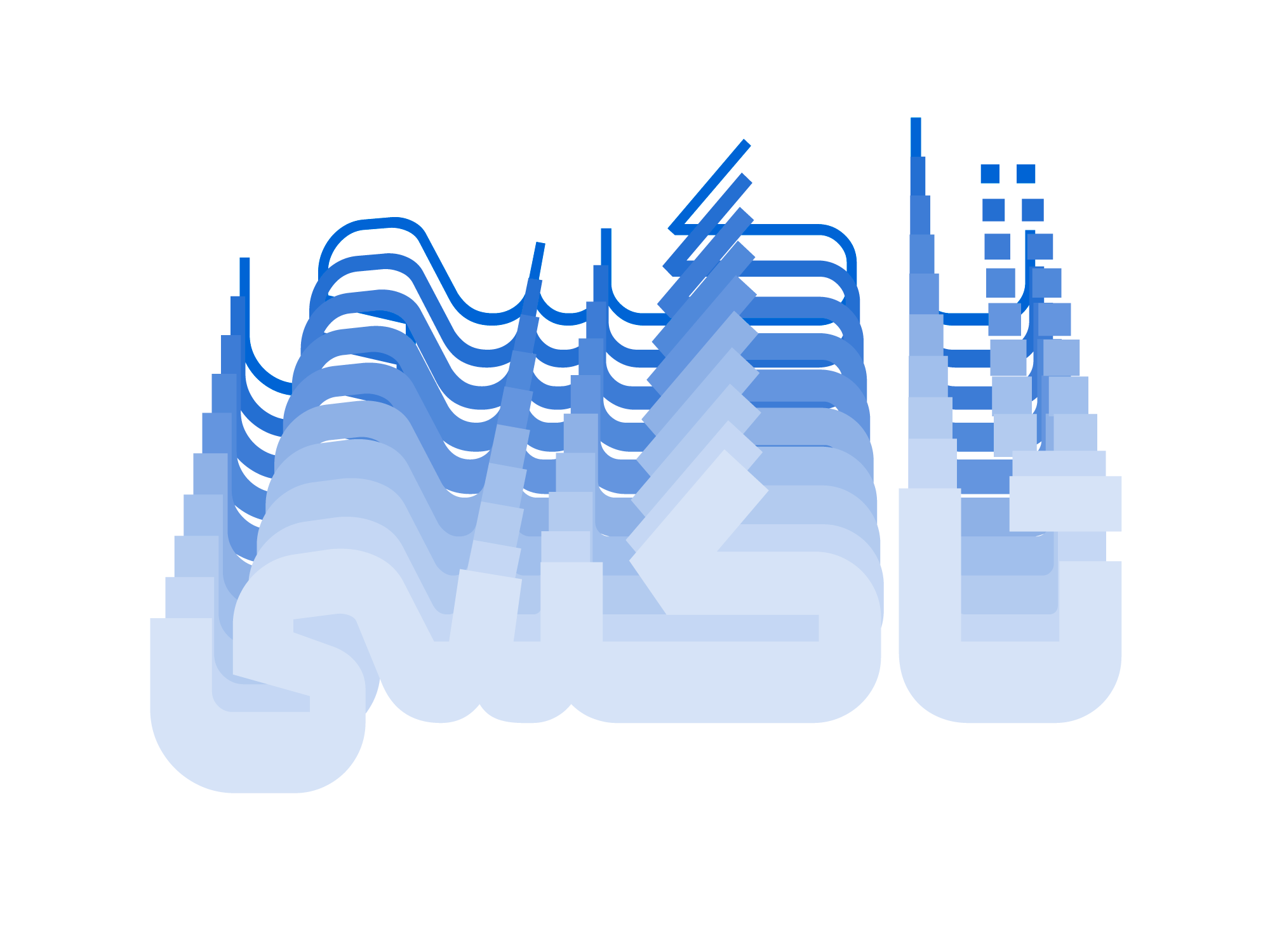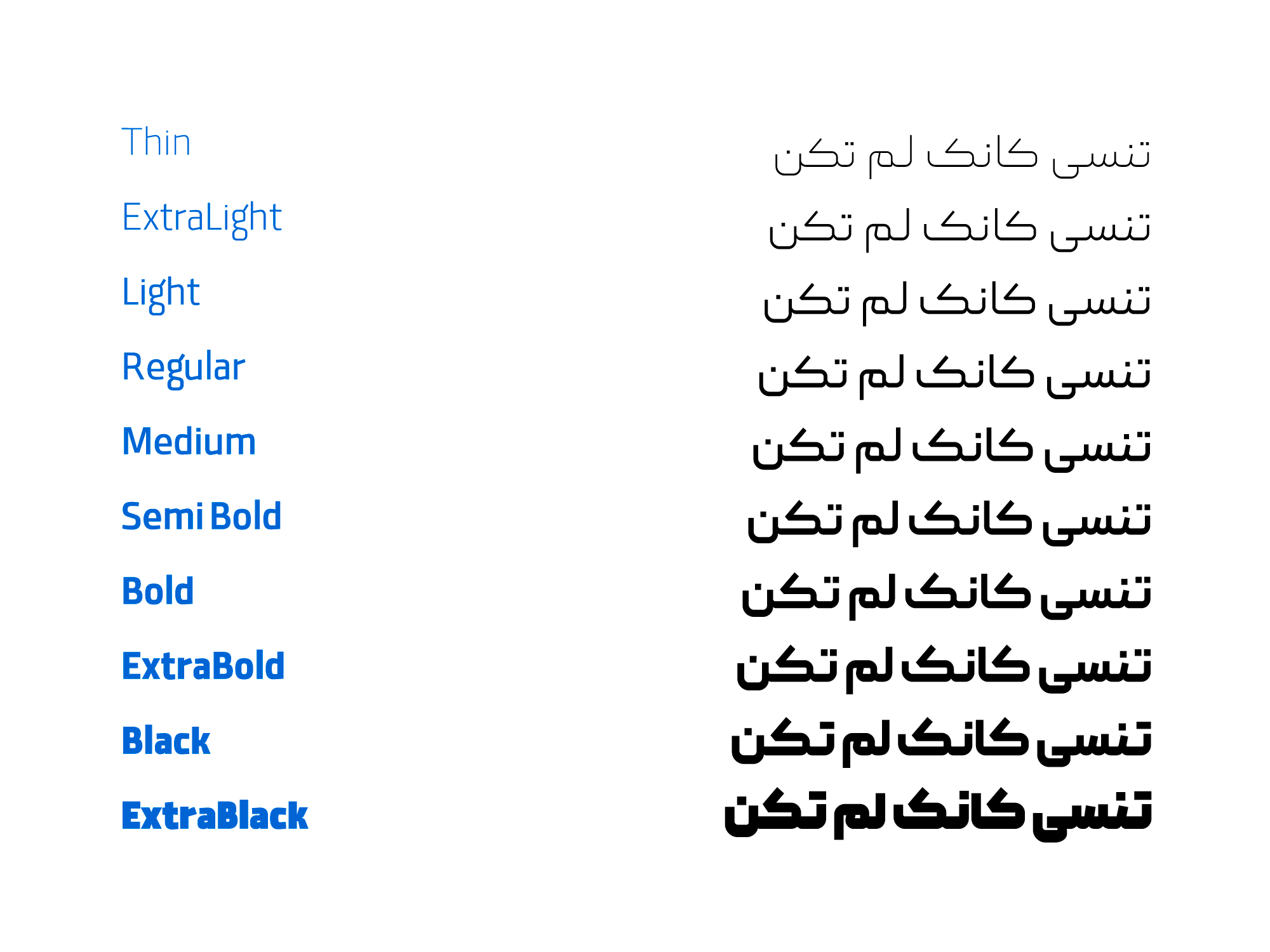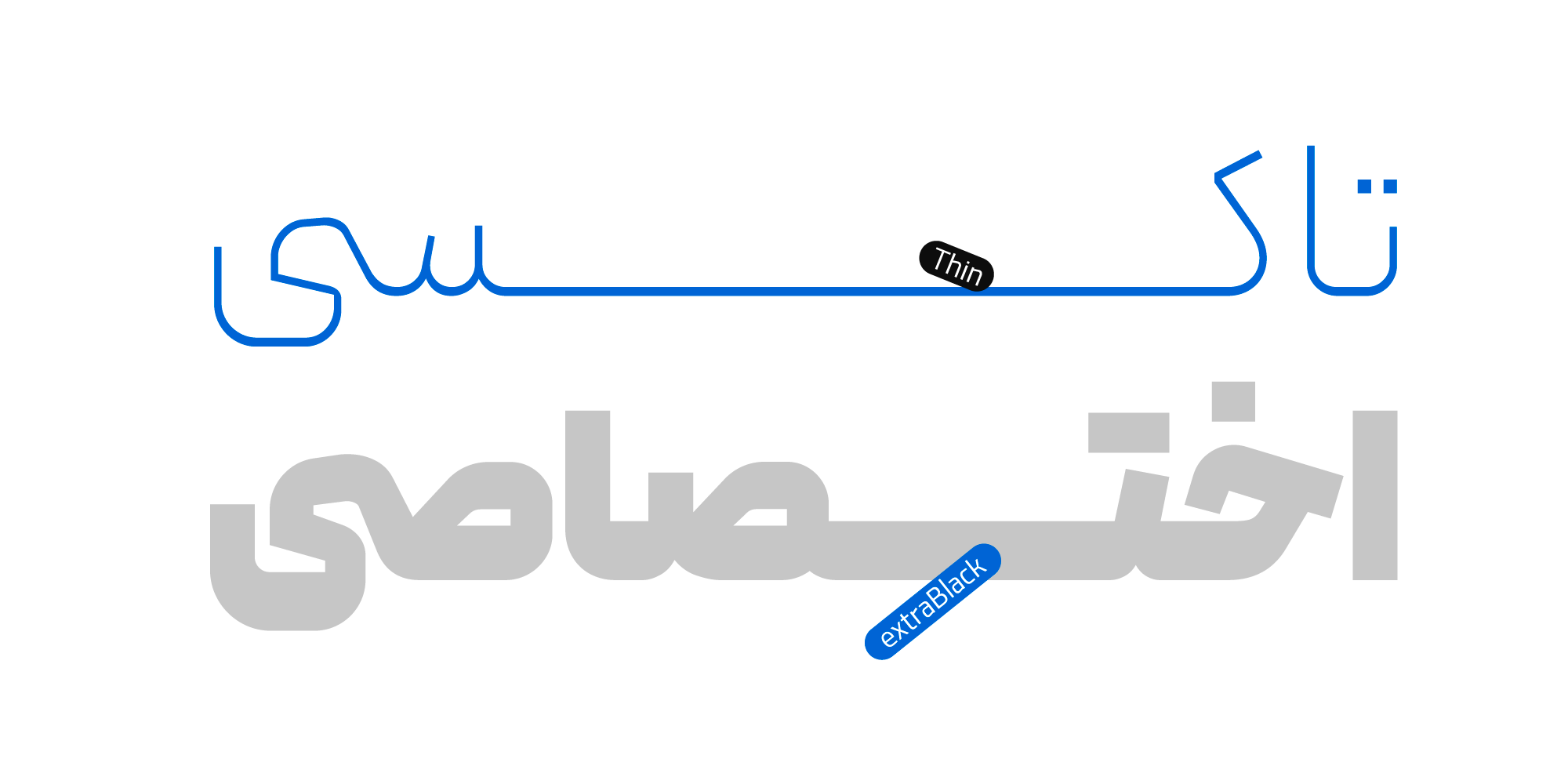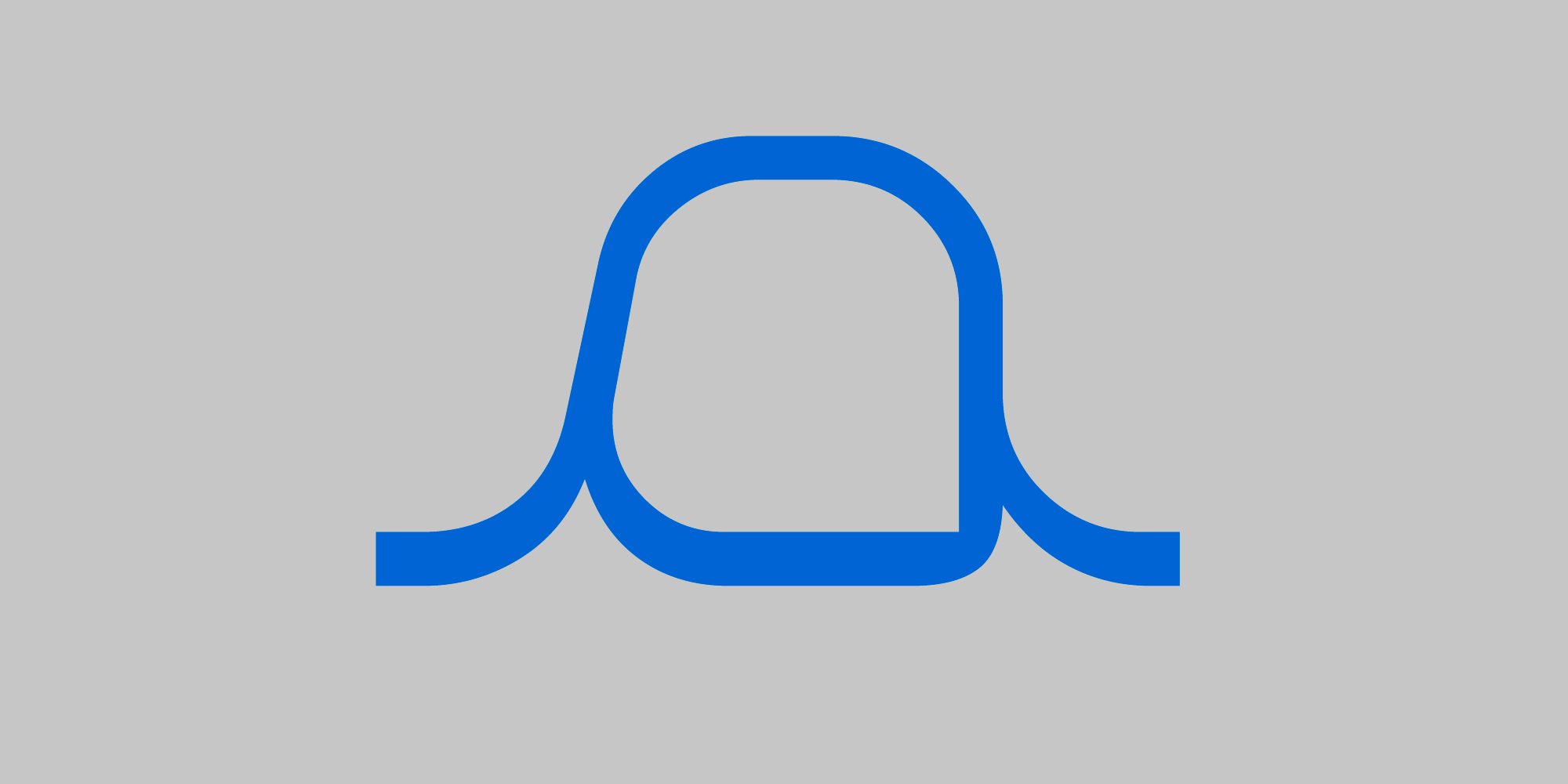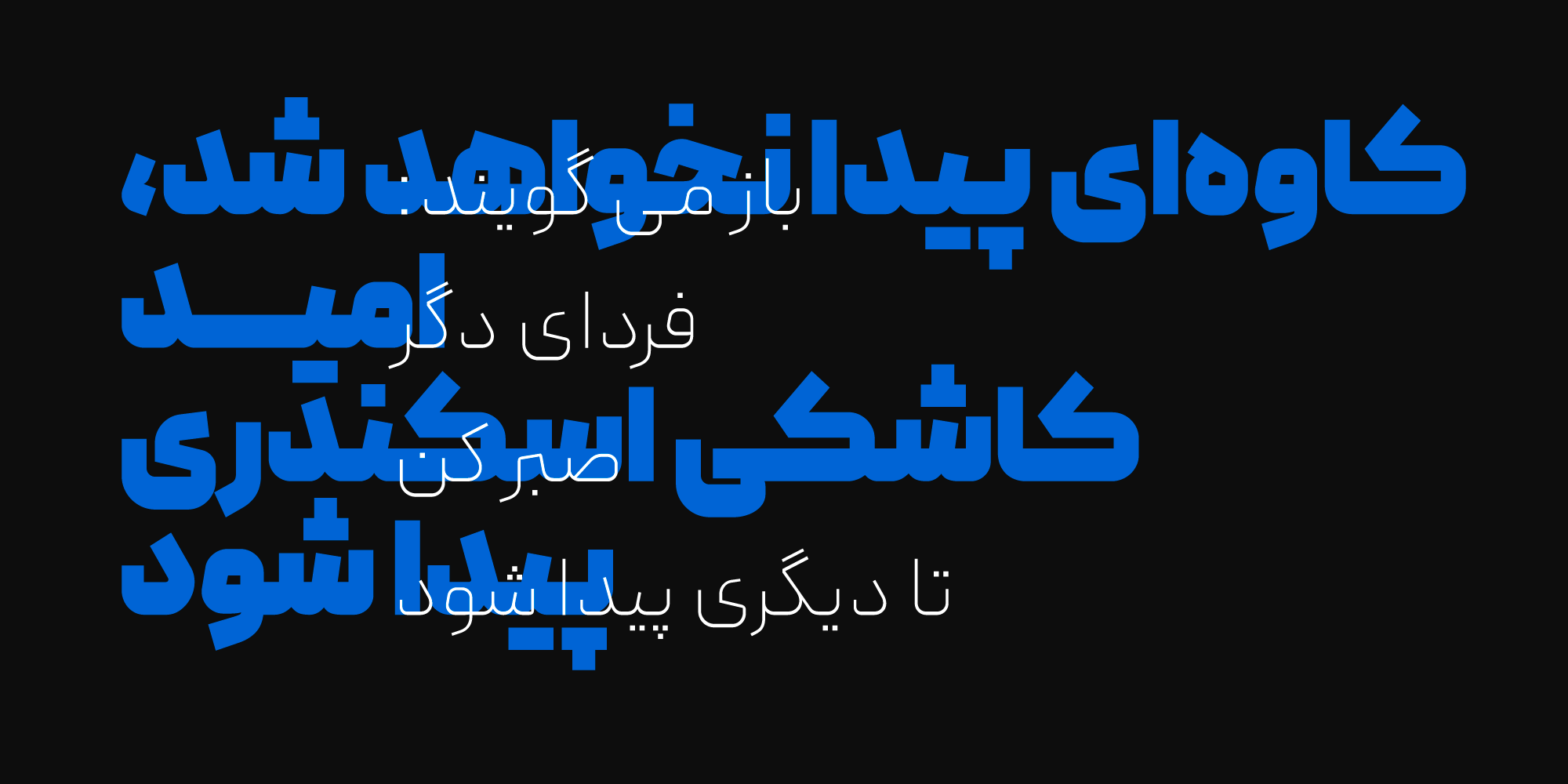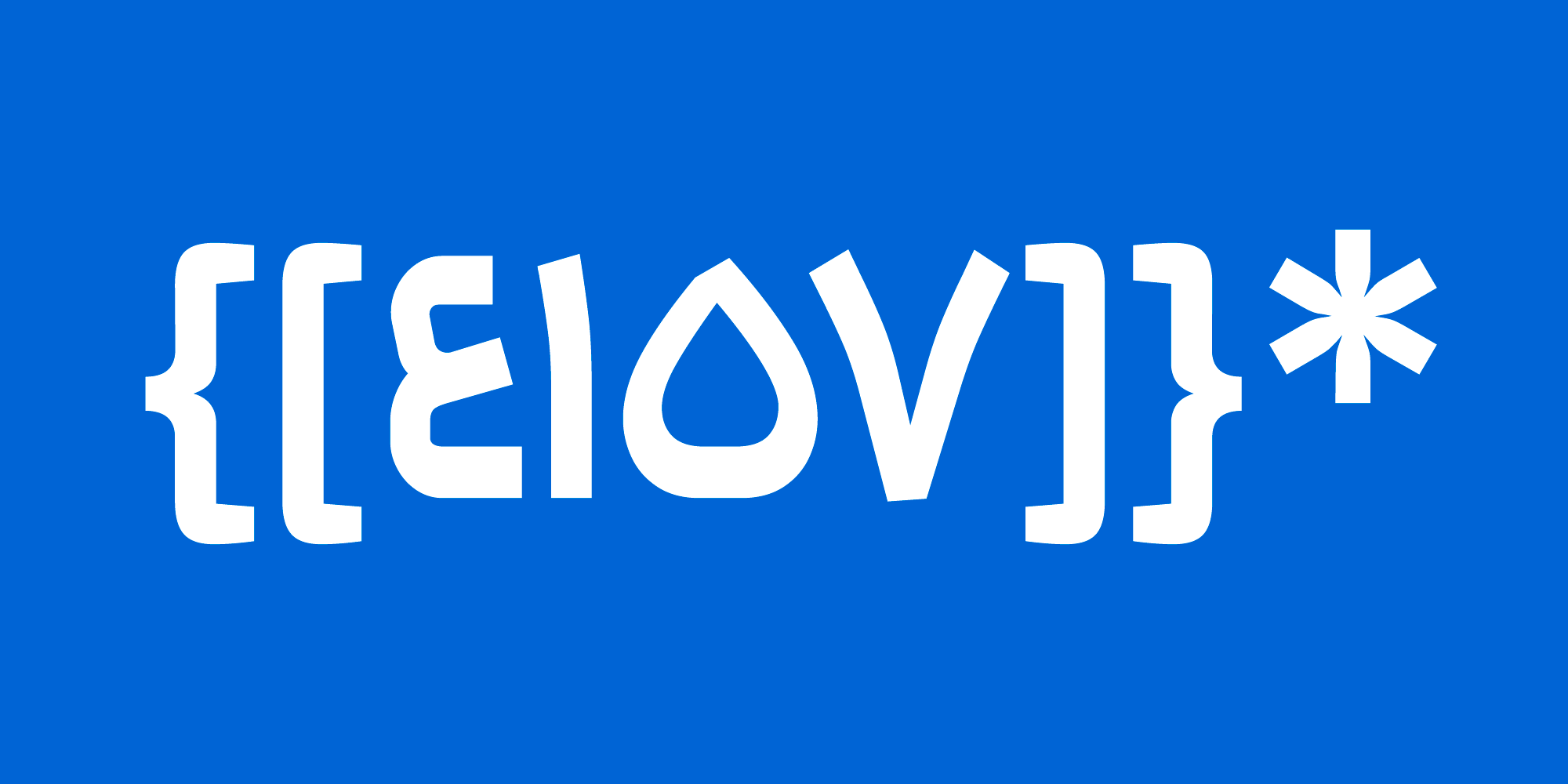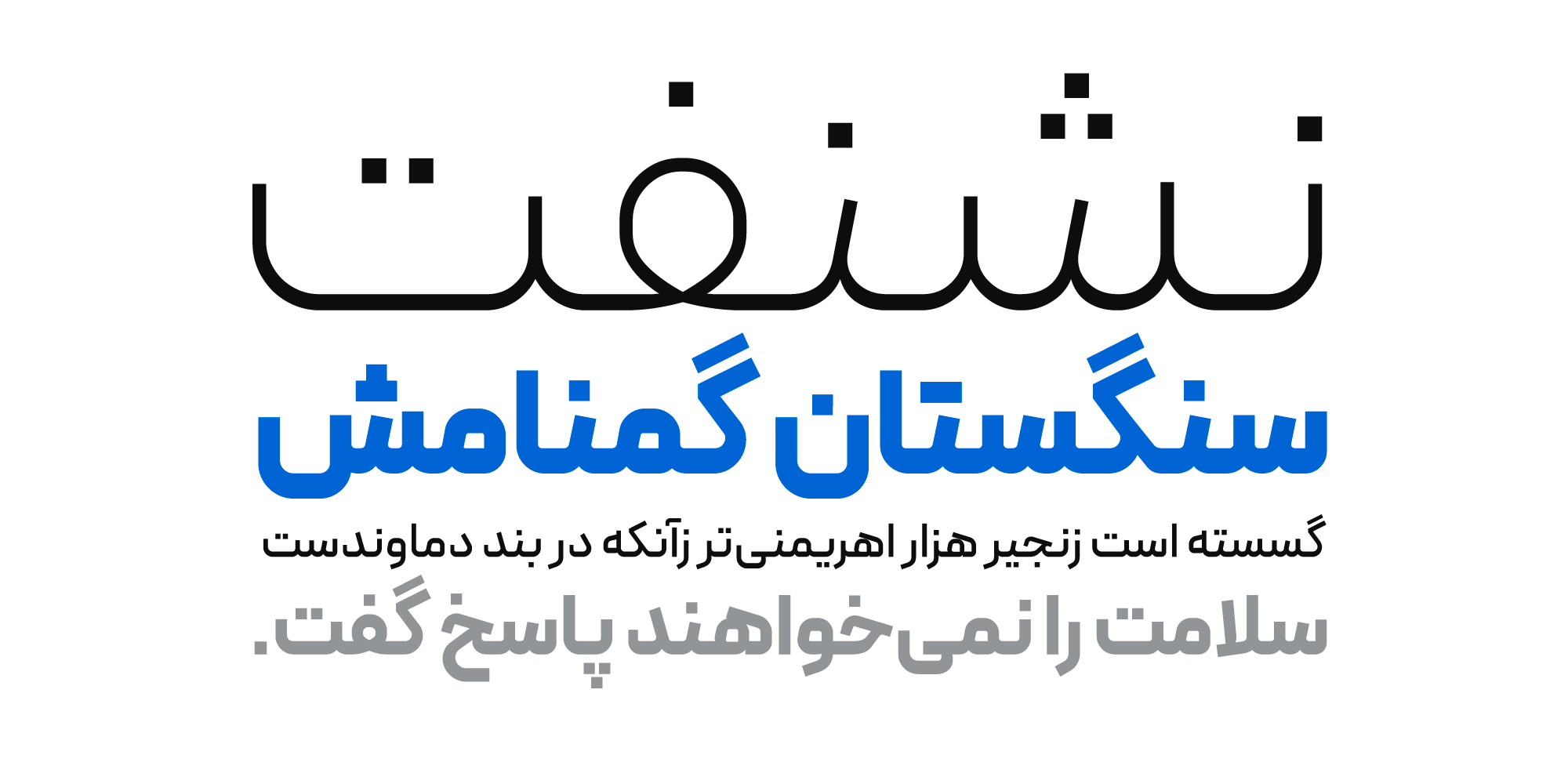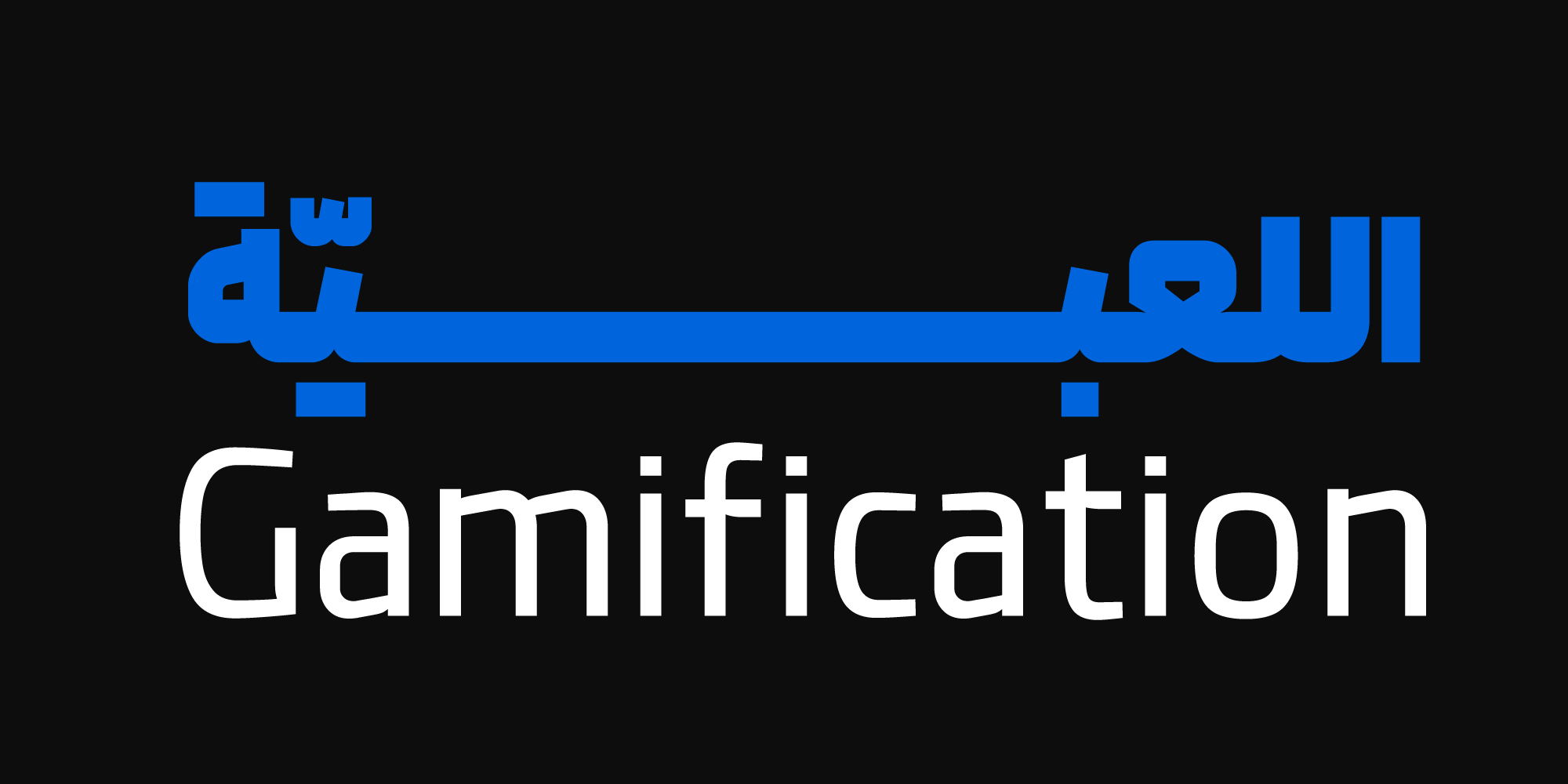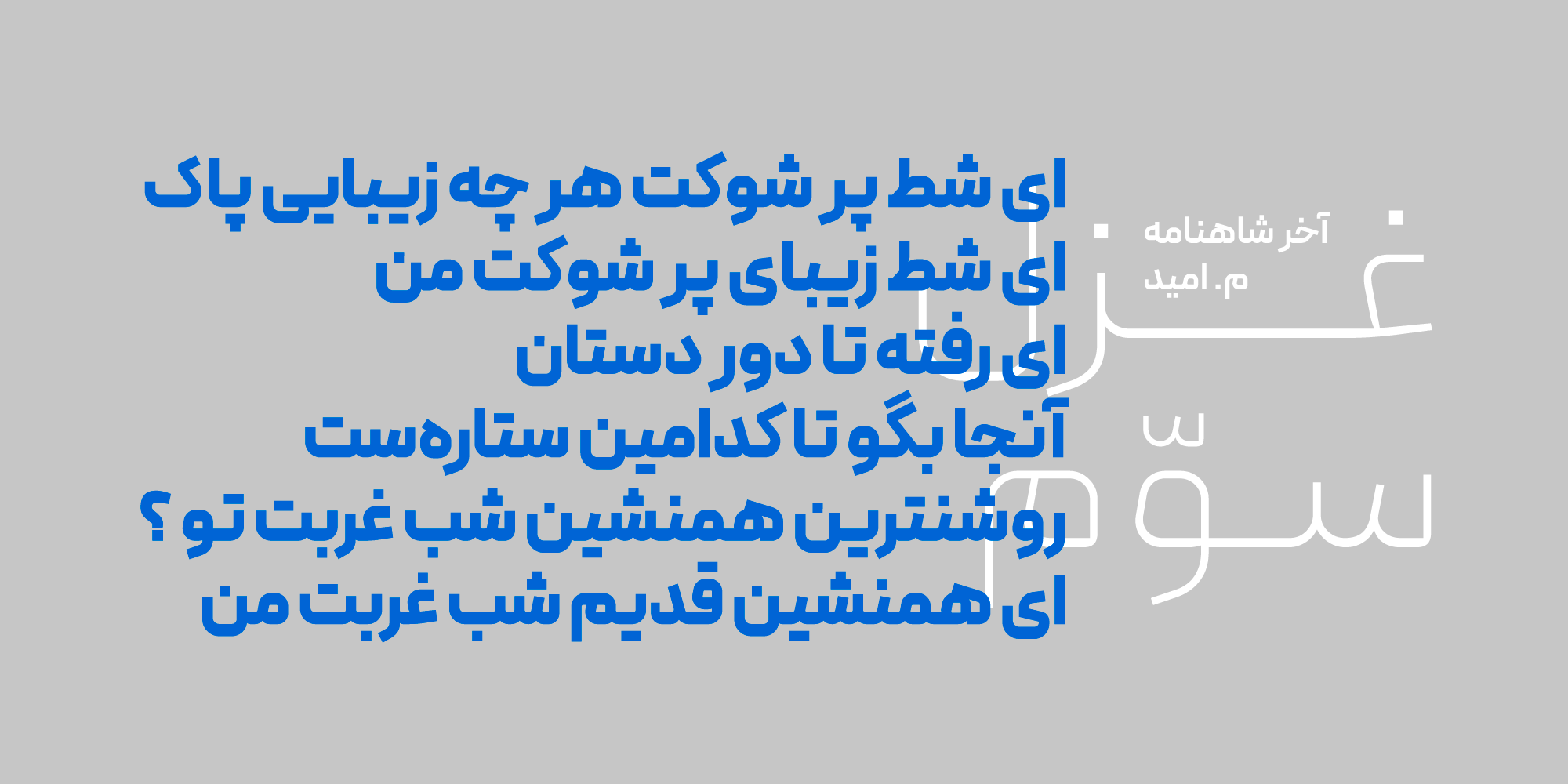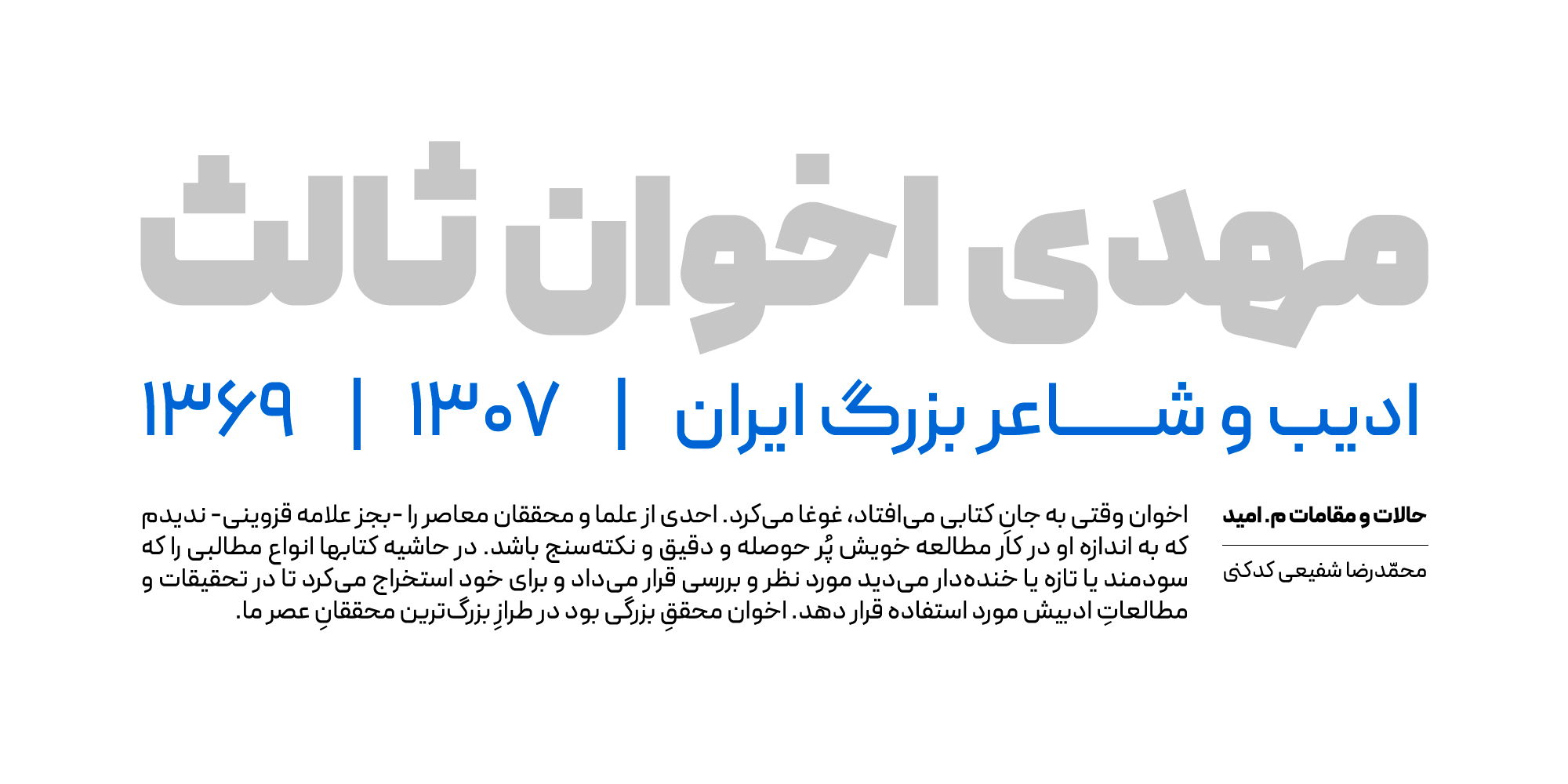
Peyda
Standard weights
Peyda has 10 standard weights in its professional package, from thin to ExtraBlack, which are intended for various applications - from the printing industry to virtual spaces. The Peyda font family has also been optimized for use in web spaces, and the required files have been placed alongside the main files.
Variable font
Peyda font - in its fourth version - is presented as a Variable font, which in addition to providing access to intermediate weights between standard weights, makes all weights available in the form of a single font file.
Support for English, Arabic, Kurdish and Urdu languages
The Peda typeface is designed for Persian/Arabic and Latin and supports Kurdish and Urdu languages.
Alternative letters and combinations
To create variety in writing style and readability, alternatives for some letters and also some binary alternative combinations have been specified.
In the "Peda" font, alternate letters have been designed for the letters "ي", "ئ" and "ي". These alternate letters are in the Stylistic Alternates category, which are also available as a Stylistic Set (Set01).
Also, the stretched (alternative) form of the letters "ک" and "گ" is in the Swash category.
Alternative two-letter combinations ending in "ی", "ر" and "ن" are available as Discretionary Ligatures.